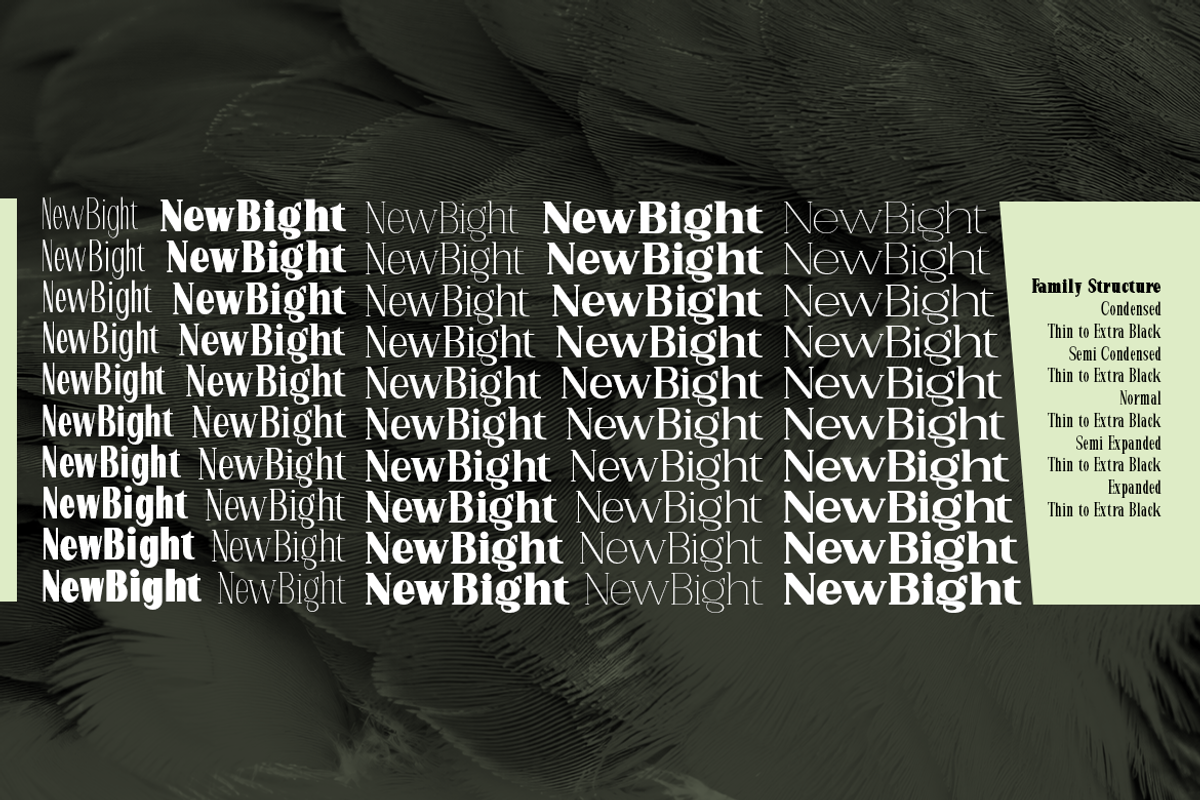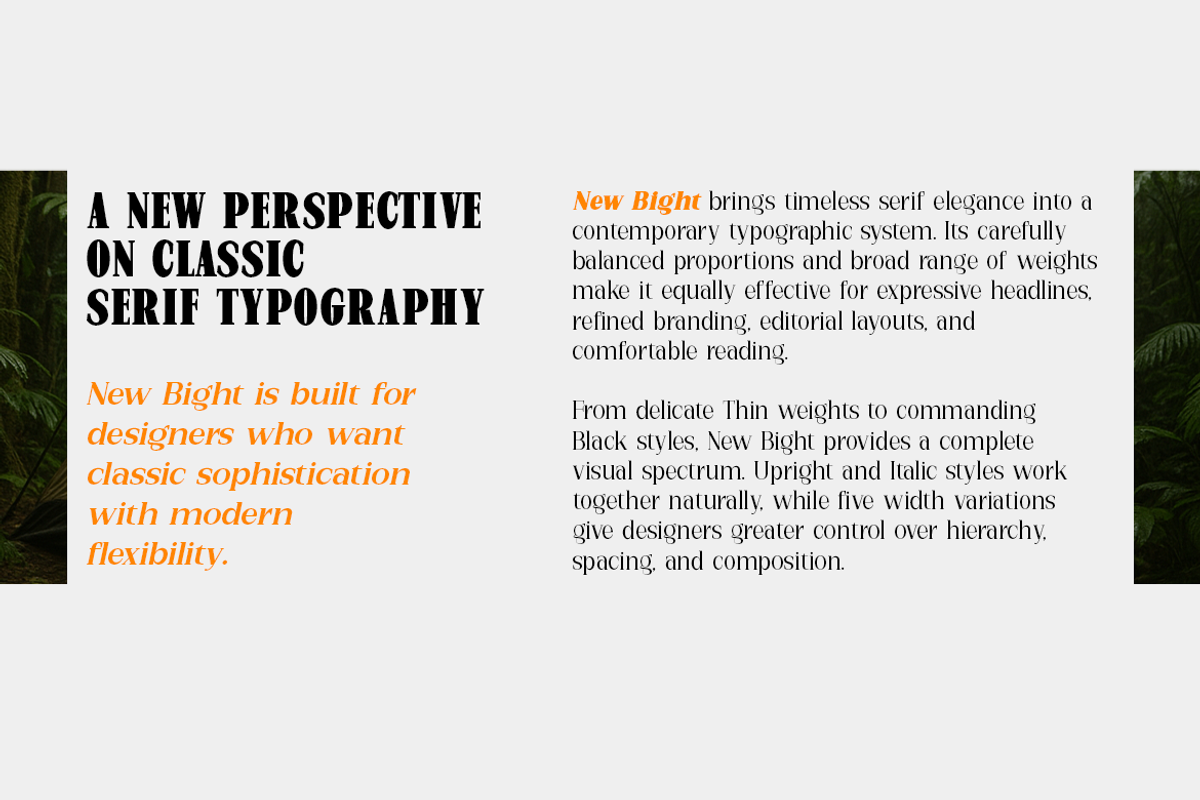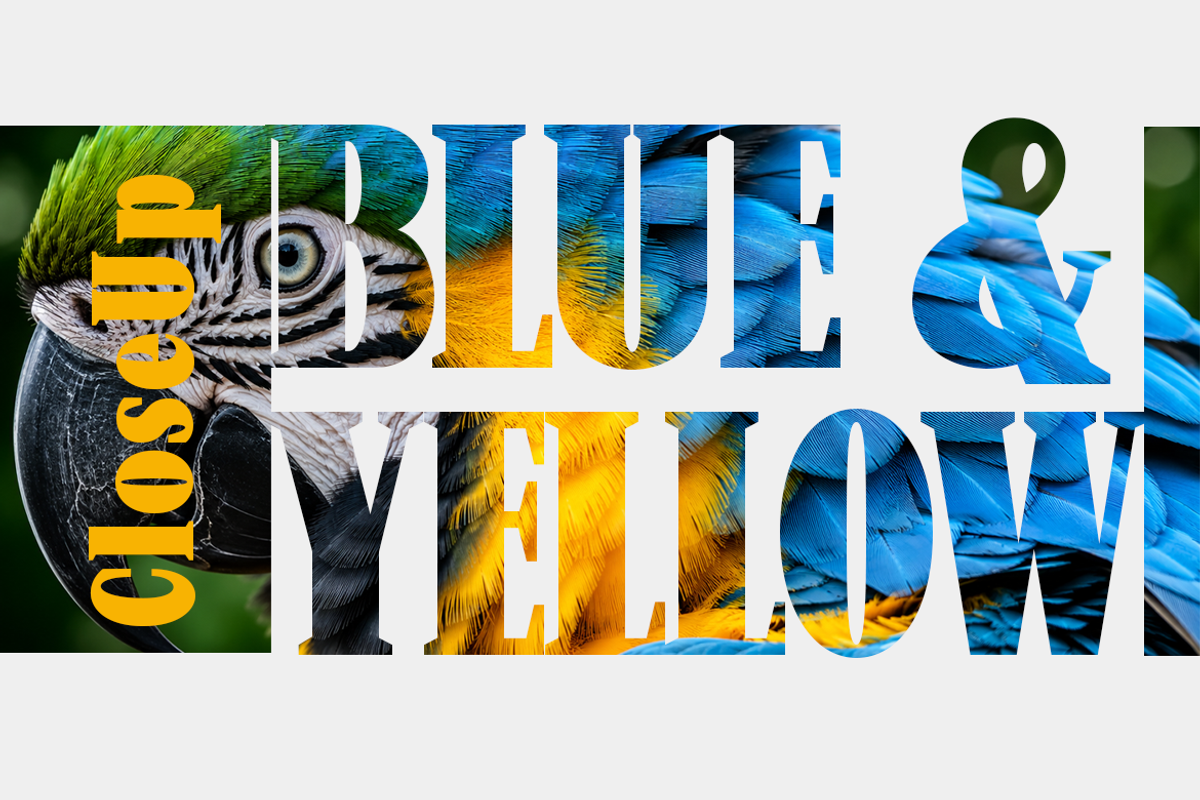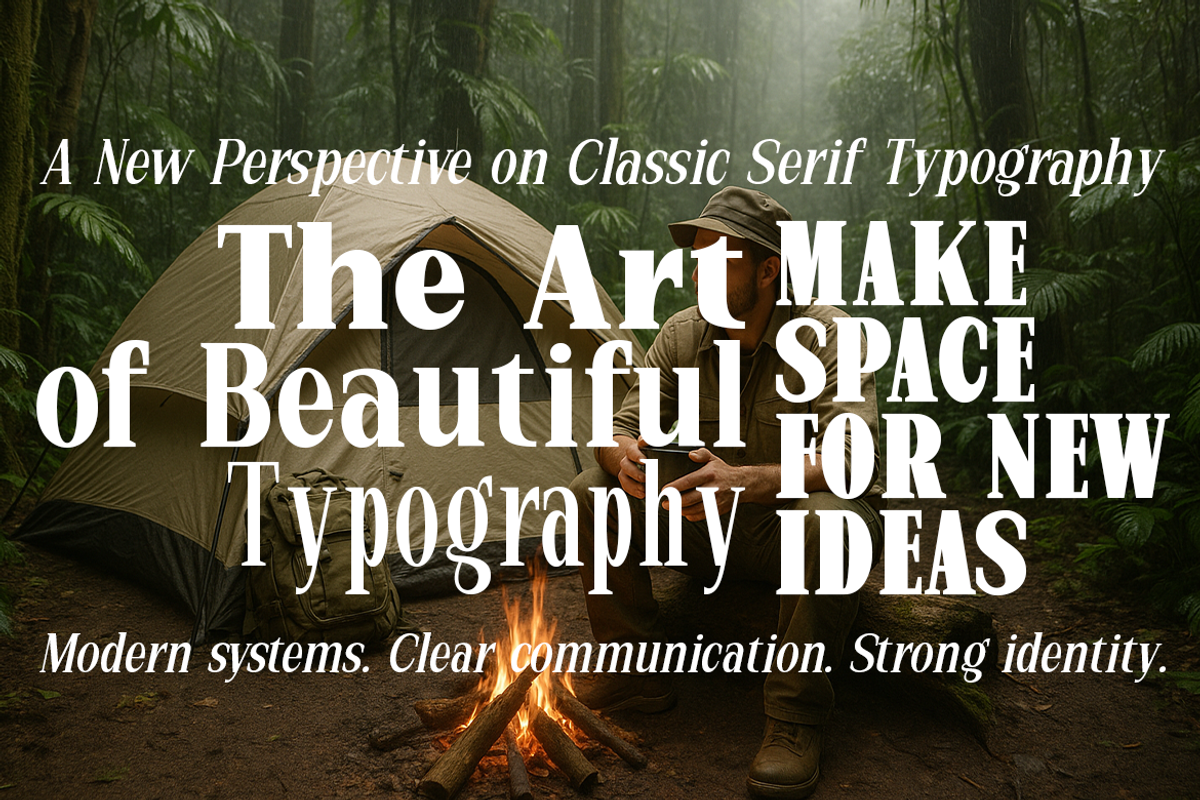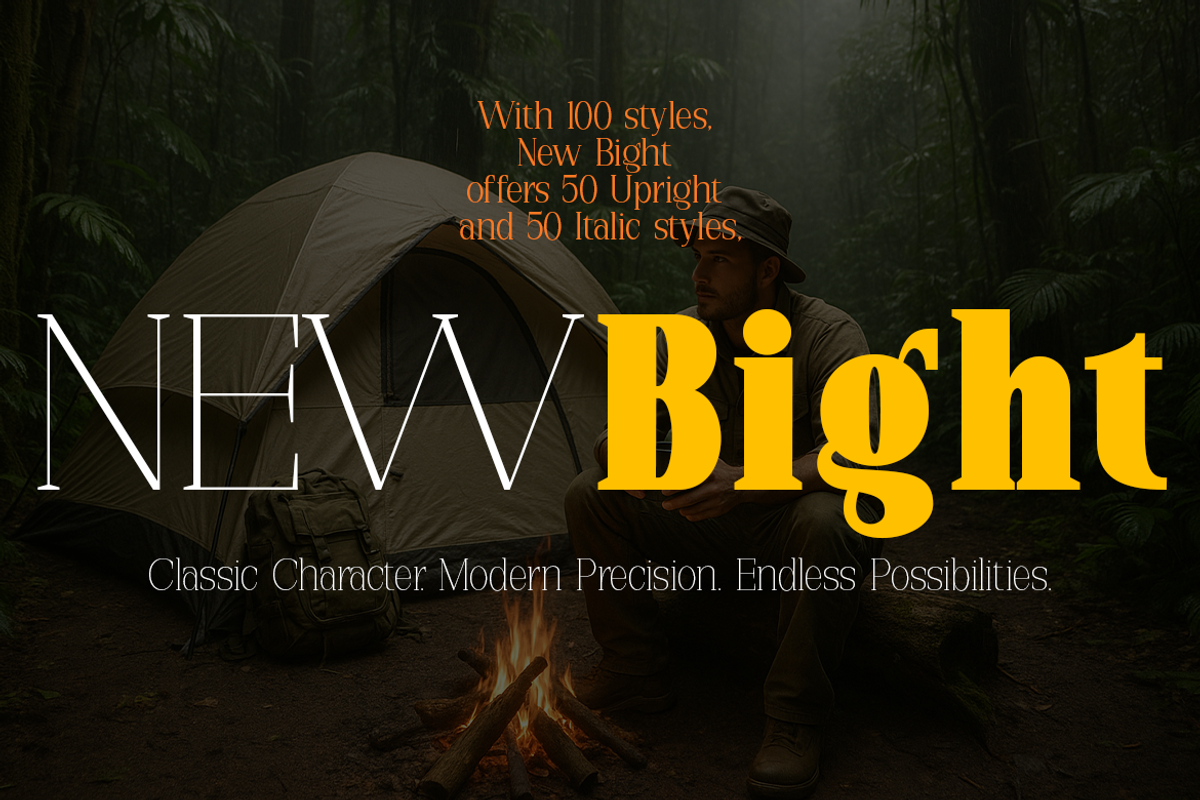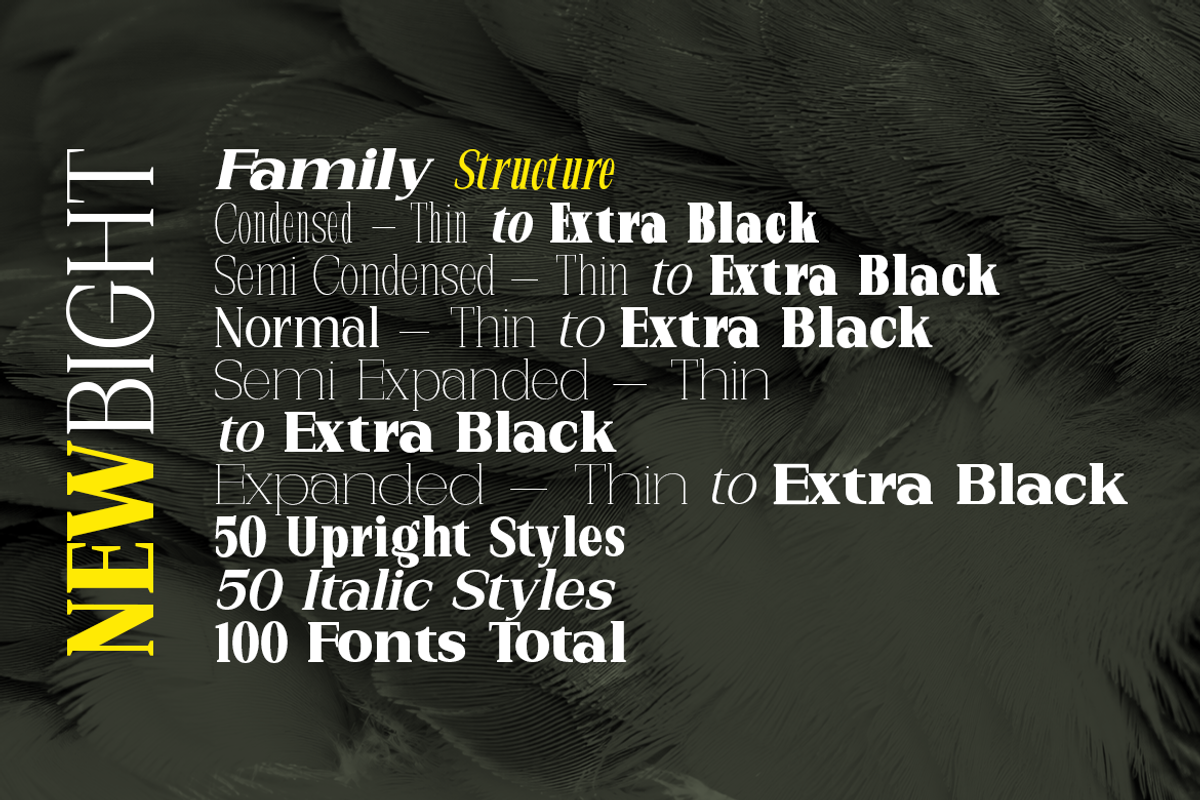
New Bight-Serif Font
New Bight — Serif Font
New Bight is a refined and versatile serif typeface family designed to combine classic editorial character with a clean, contemporary appearance. Its elegant serifs, balanced proportions, and carefully controlled contrast make it suitable for both sophisticated display typography and readable text applications.
With 100 styles, New Bight offers 50 Upright and 50 Italic styles, providing extensive flexibility for branding, editorial design, packaging, advertising, posters, magazines, and luxury visual identities.
The family covers five width categories: Condensed, Semi Condensed, Normal, Semi Expanded, and Expanded, allowing designers to maintain a consistent typographic identity across different layouts and design requirements. The weight range extends from Thin to Black, giving New Bight everything from delicate, refined typography to bold and powerful headlines.
Font Family
100 Fonts Total
50 Upright
50 Italic
5 Width Categories: Condensed, Semi Condensed, Normal, Semi Expanded, Expanded
Weight Range: Thin to Black
Style: Classic Serif / Editorial / Modern / Versatile
Ideal For
Brand identity, logos, editorial design, magazines, books, fashion branding, luxury packaging, posters, headlines, advertising, invitations, websites, social media graphics, product labels, and sophisticated corporate design.